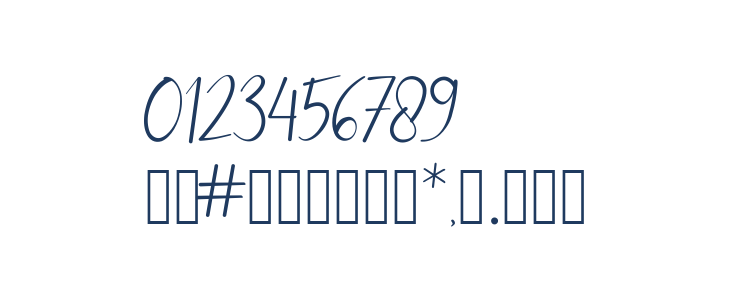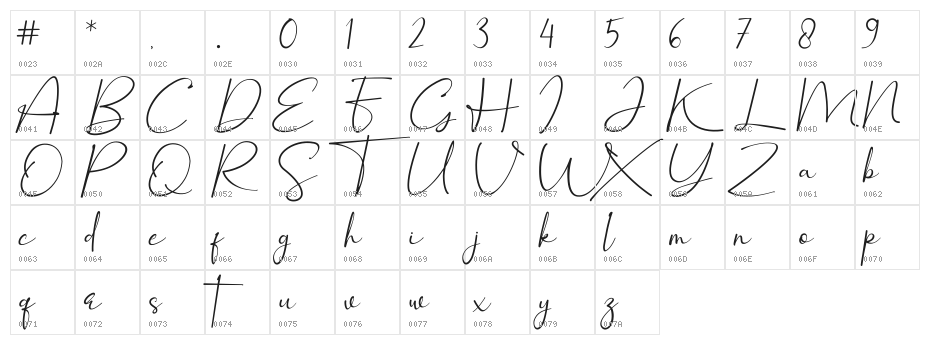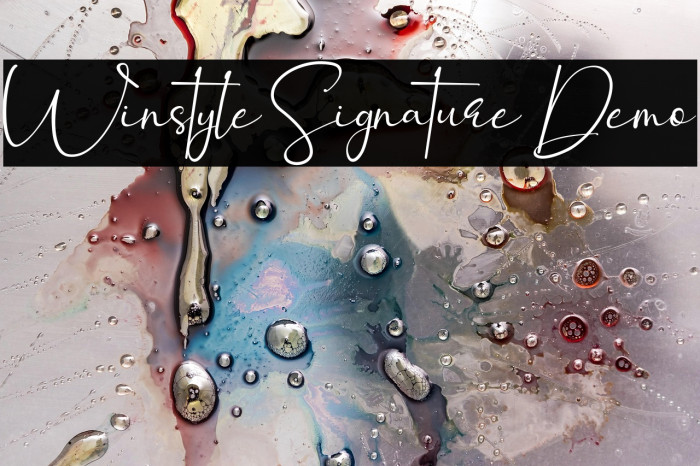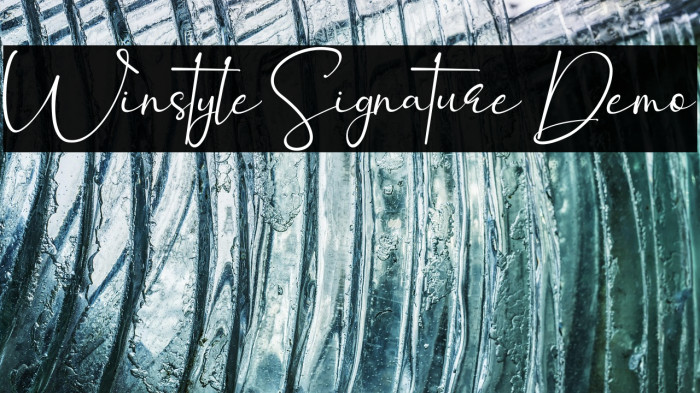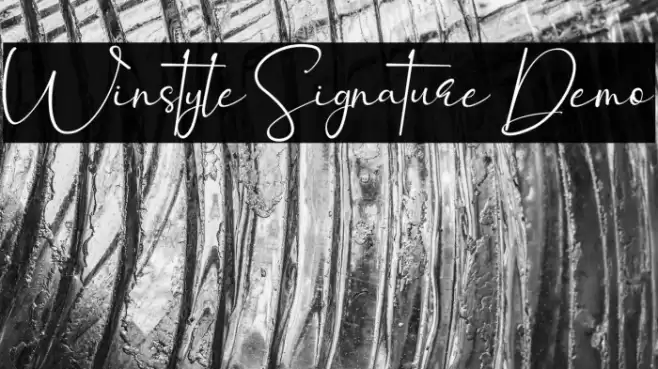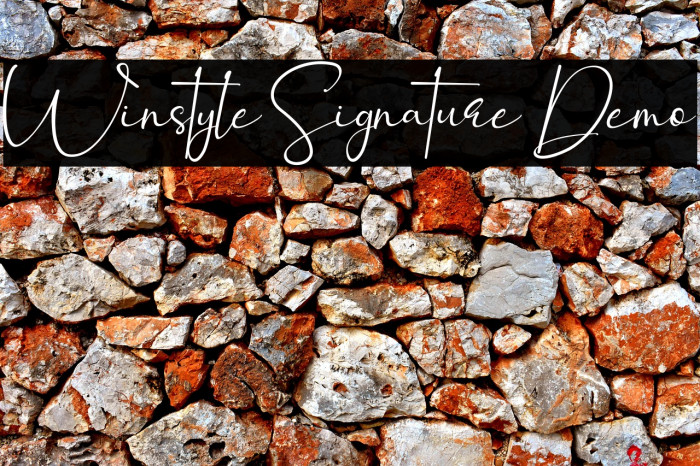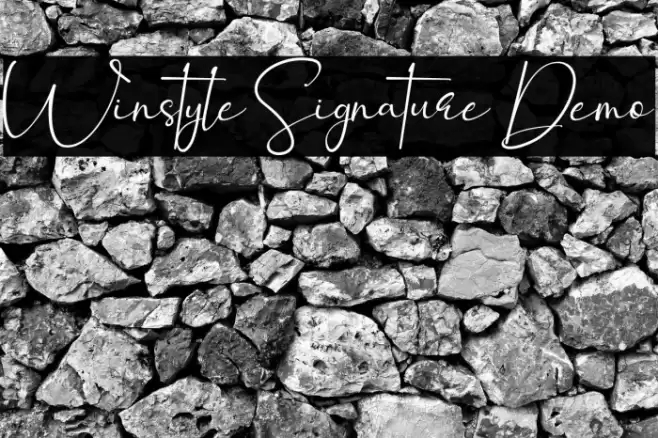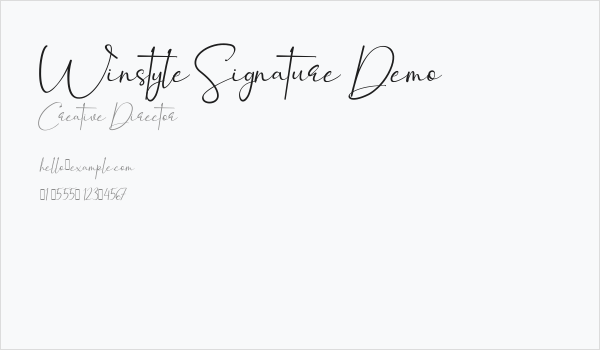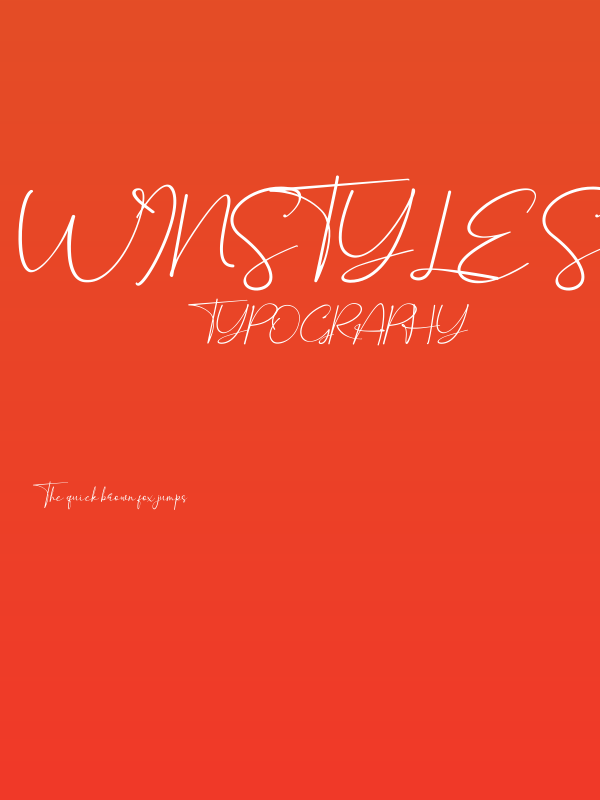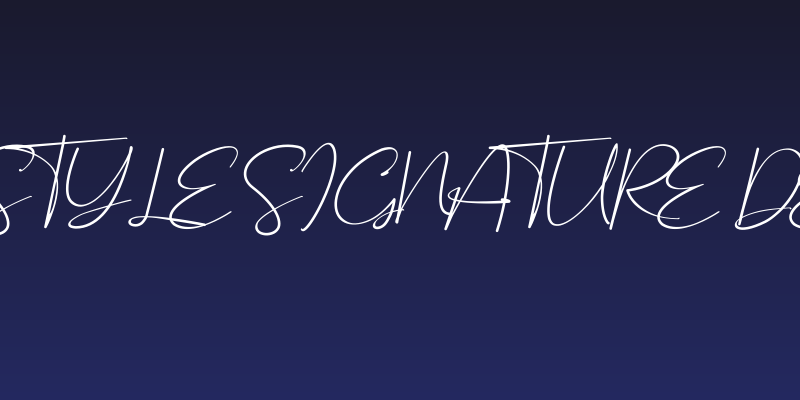
Winstyle Signature Demo Font
Winstyle Signature Demo Description
This font exudes elegance and sophistication with its flowing, cursive style. The uppercase letters are tall and slender, featuring graceful curves and loops that give a sense of fluidity and movement. The lowercase letters maintain this fluidity, with some characters extending below the baseline, adding to the font's dynamic appearance. The numerals are consistent with the overall style, featuring a mix of curves and straight lines that maintain readability while complementing the script-like nature of the font. Special characters are thoughtfully designed to match the aesthetic, ensuring a cohesive look across all text. This font is perfect for creating a personal, handwritten feel in any project.